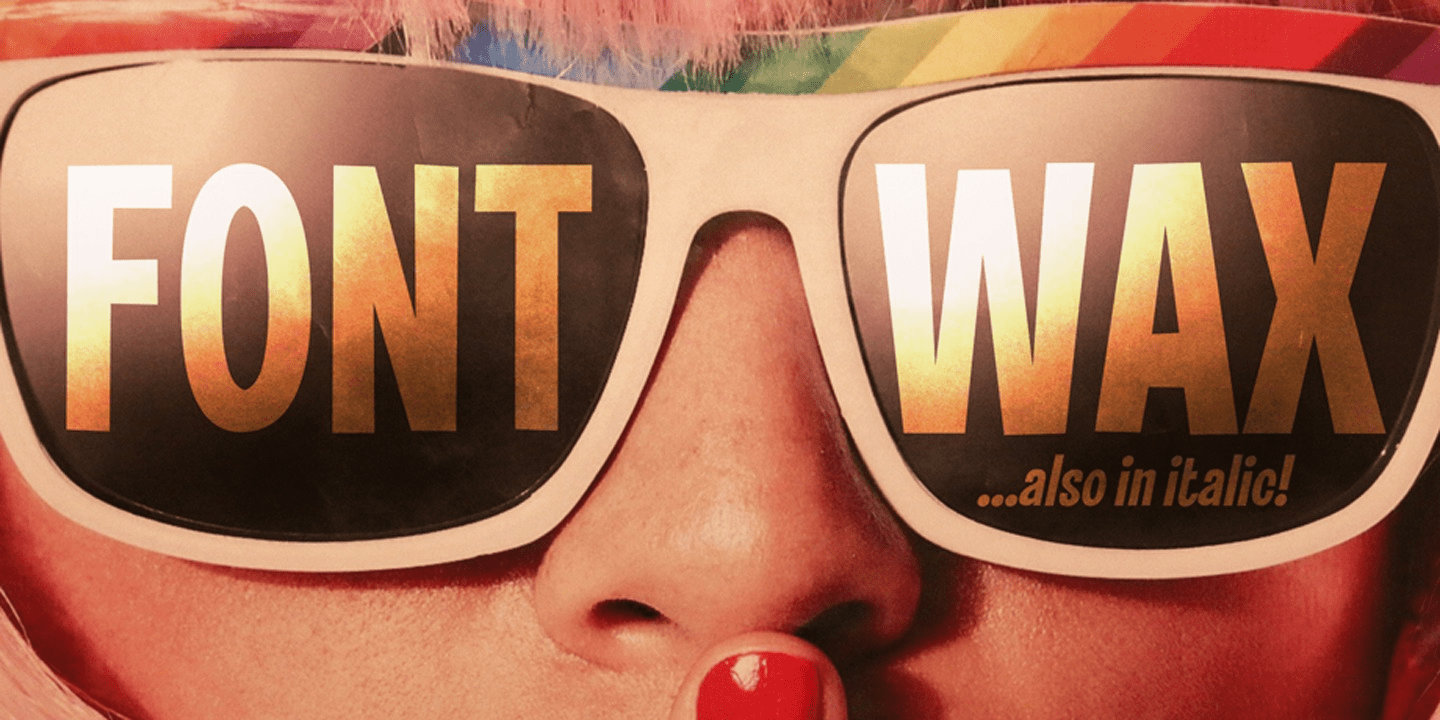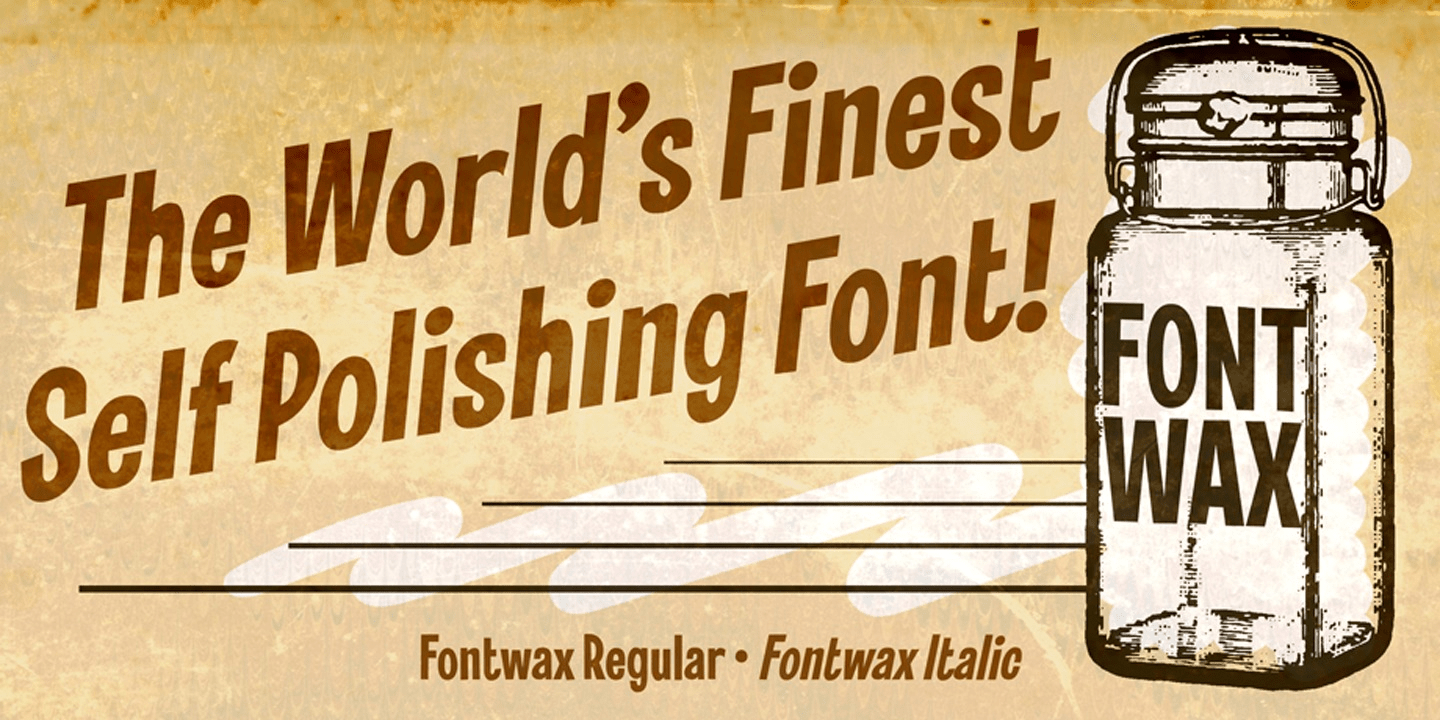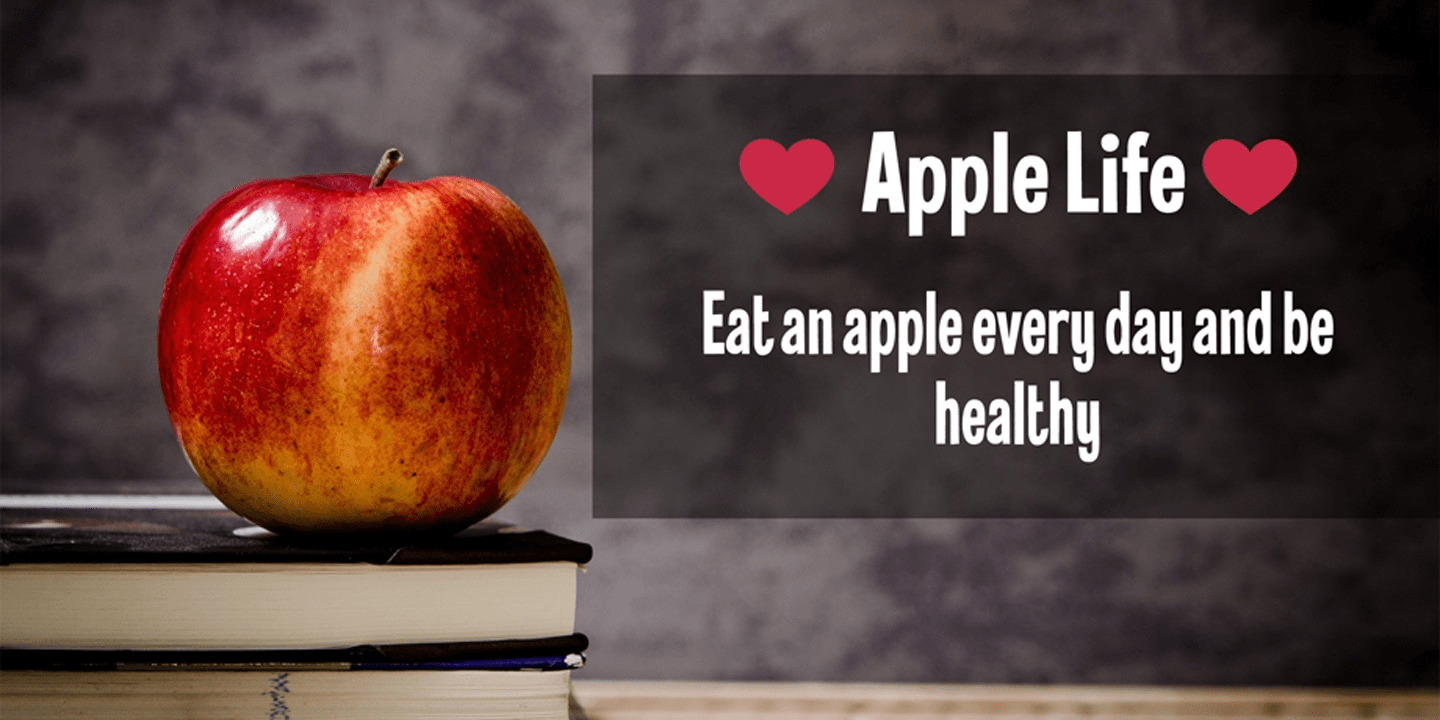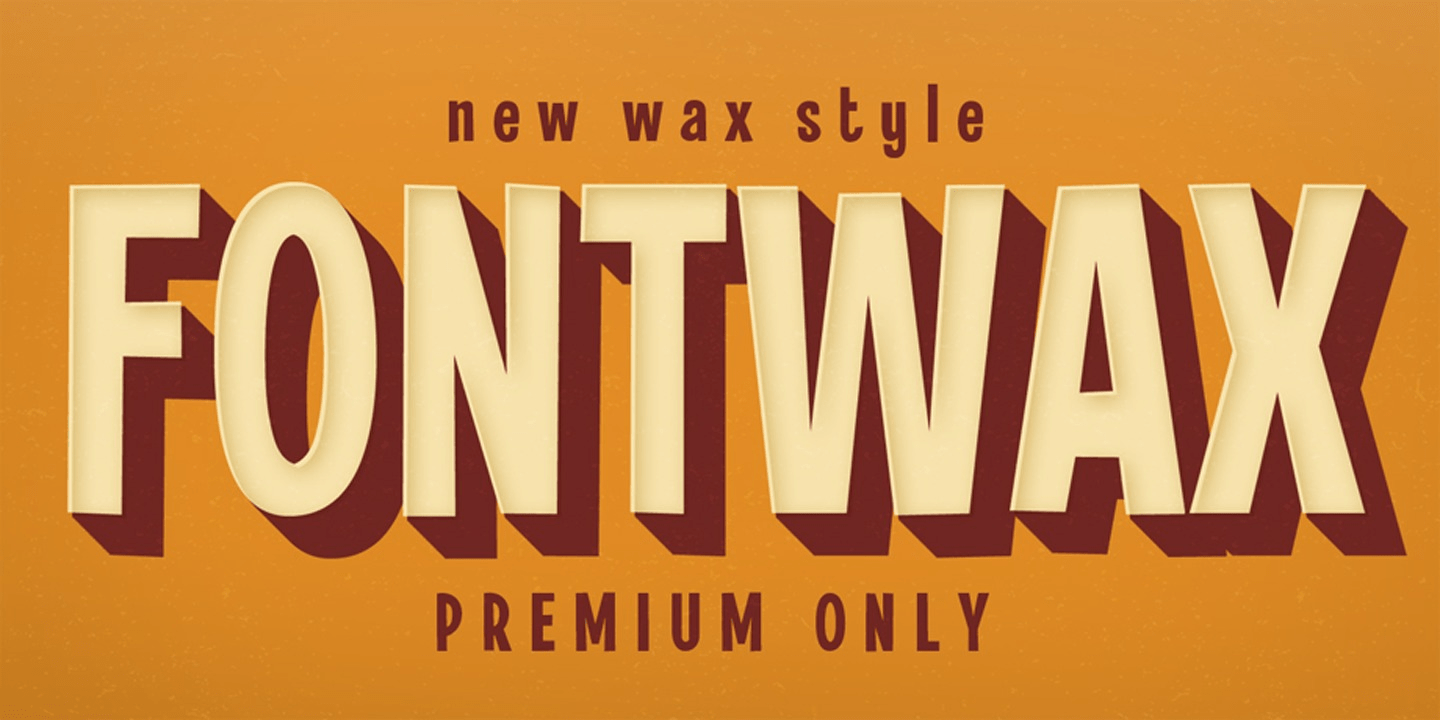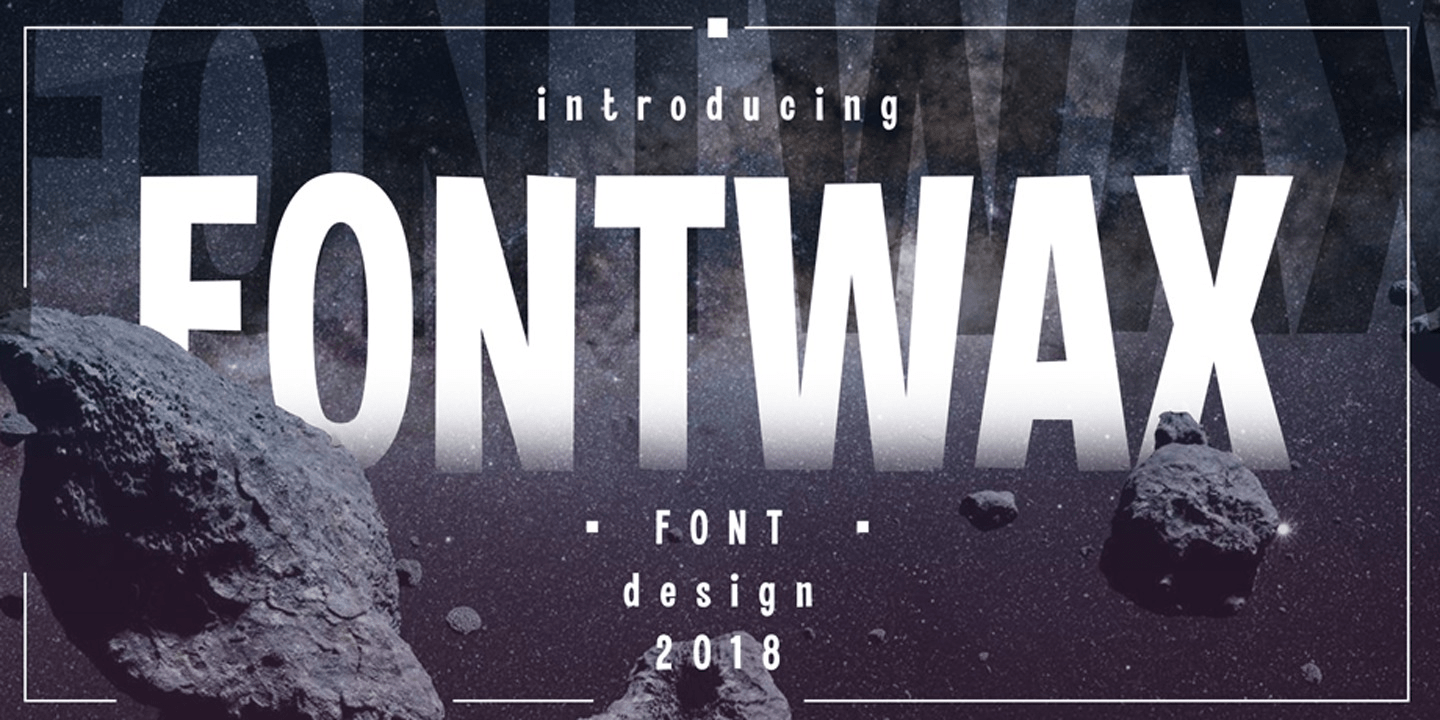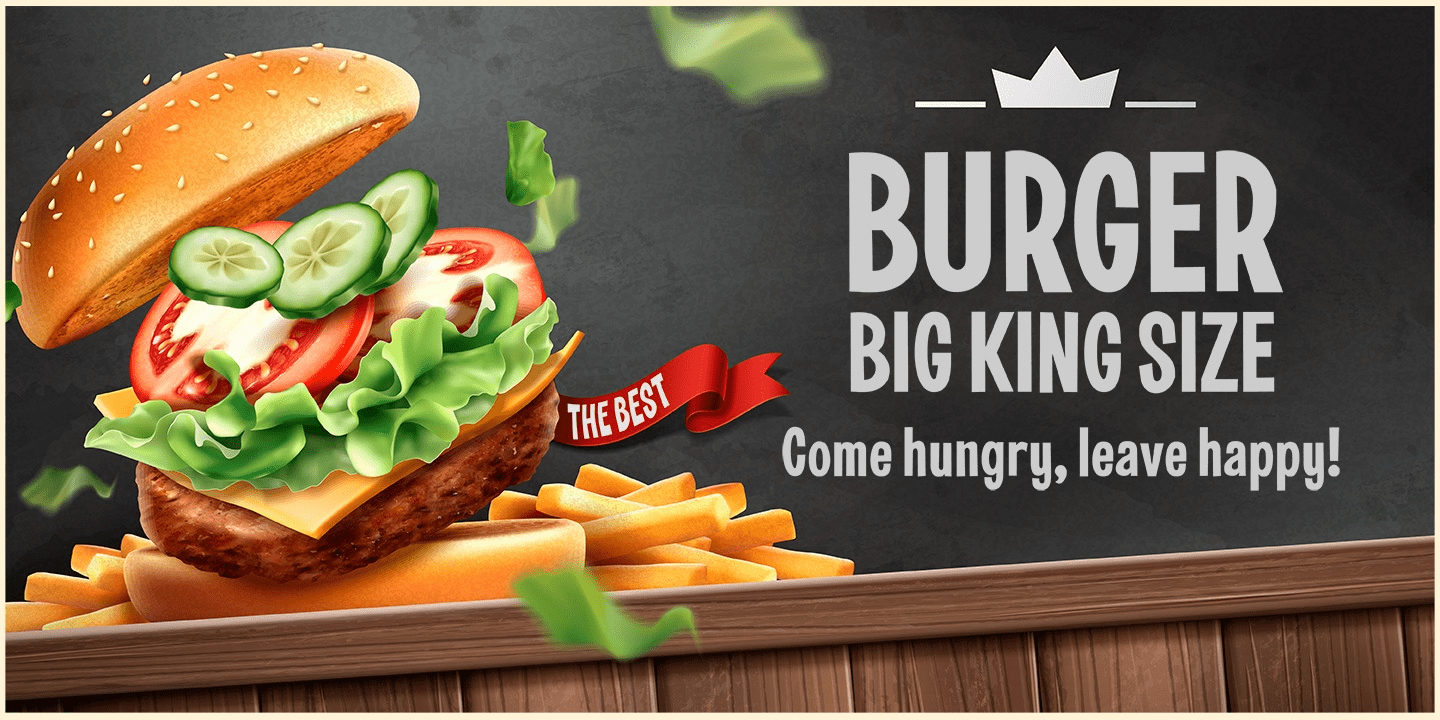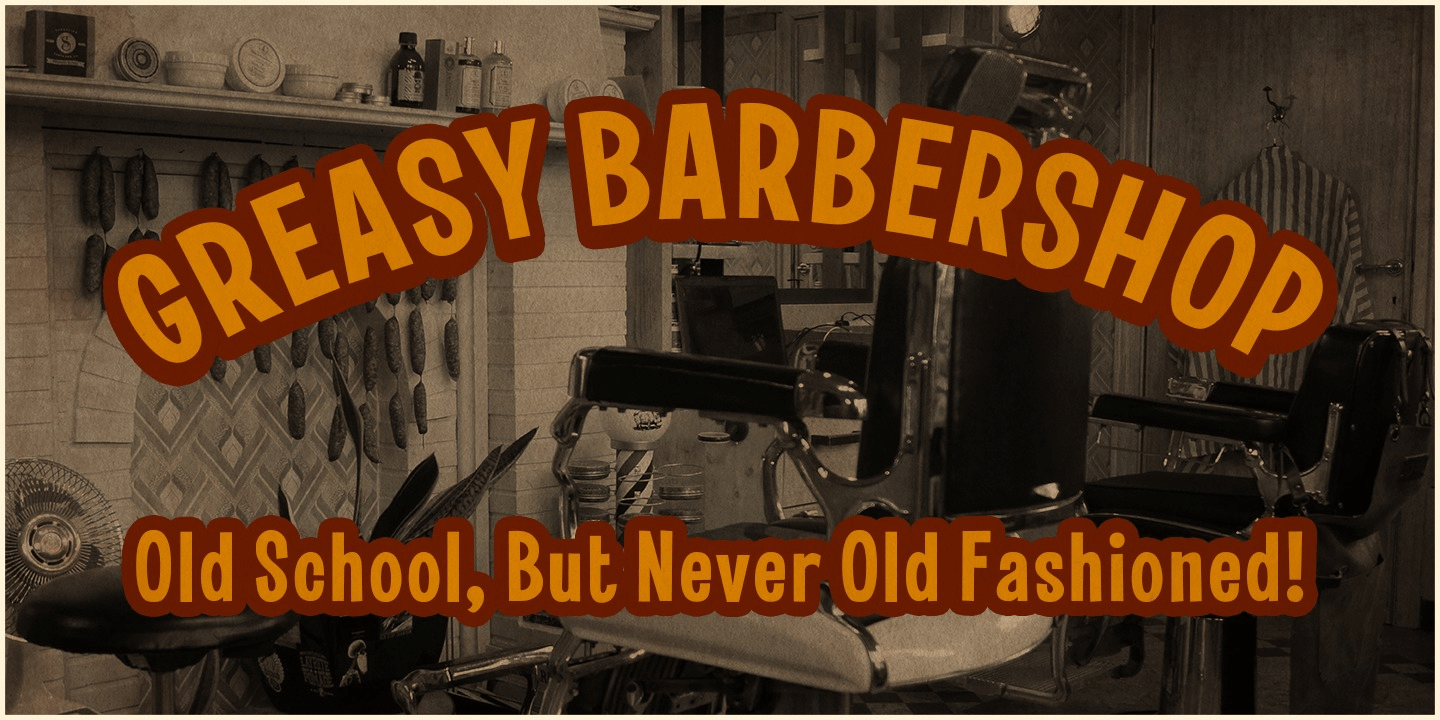
Fontwax
The Fontwax font is inspired by sign painters in sixties advertisings with a touch of Arts & Crafts. This style of type is instantly associated with advertising and design for high-end products. Fontwax is meticulously drawn for quality and readability. Fontwax is great for display, logos, branding, packaging, advertising, food, sports, titles, film, tv, and much more. Fontwax comes in 4 styles which perfectly match together. Fontwax is a great display family with roots in the advertising and sign painting industry of the 20th century. It is smoothly polished with all the features a good designer needs. For the best price, I recommend you grab the whole pack! Fontwax is designed by Coert De Decker